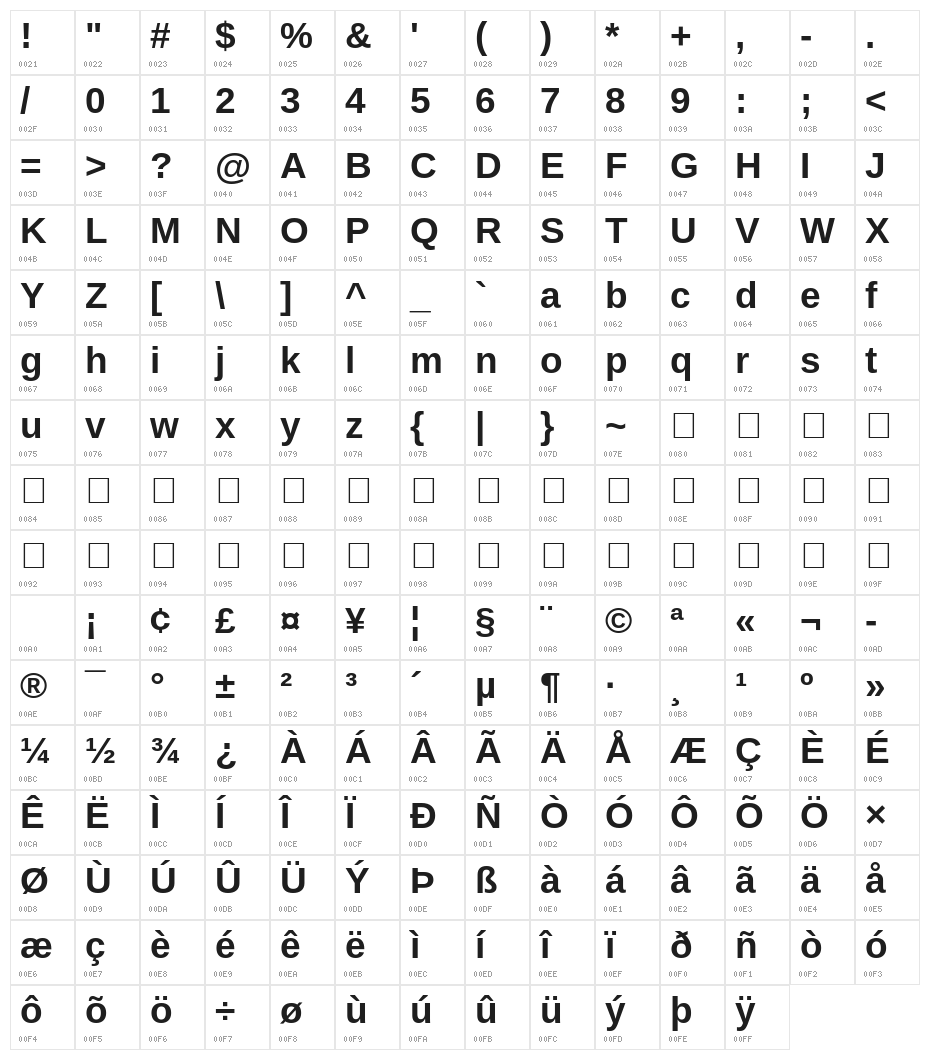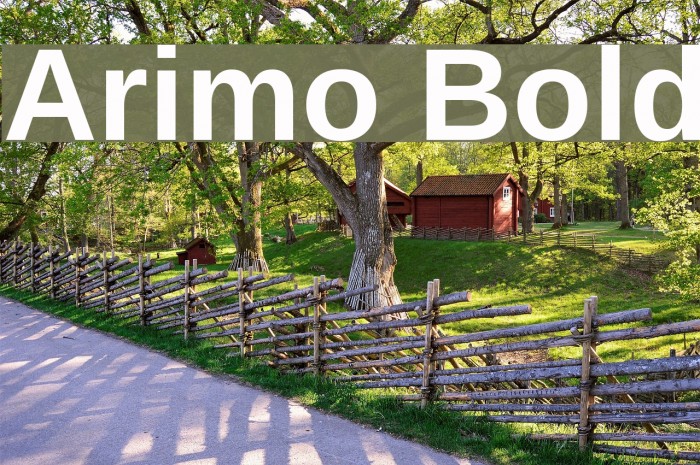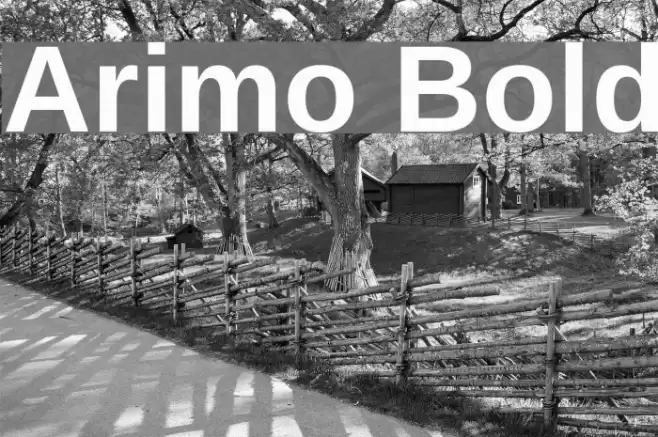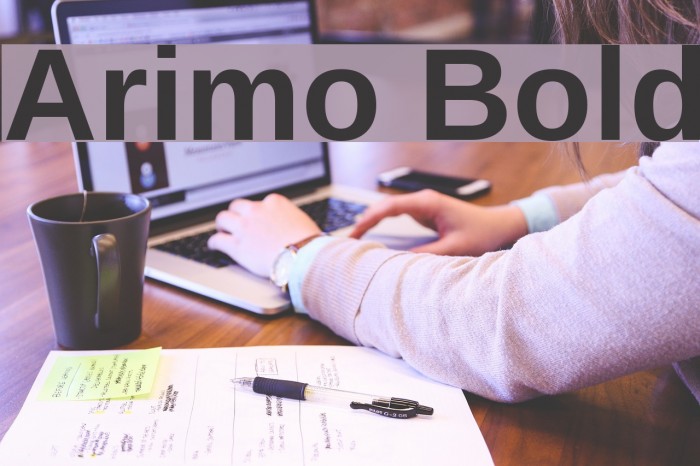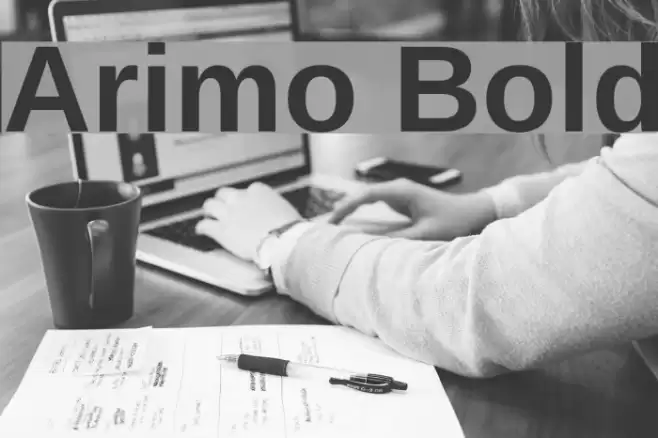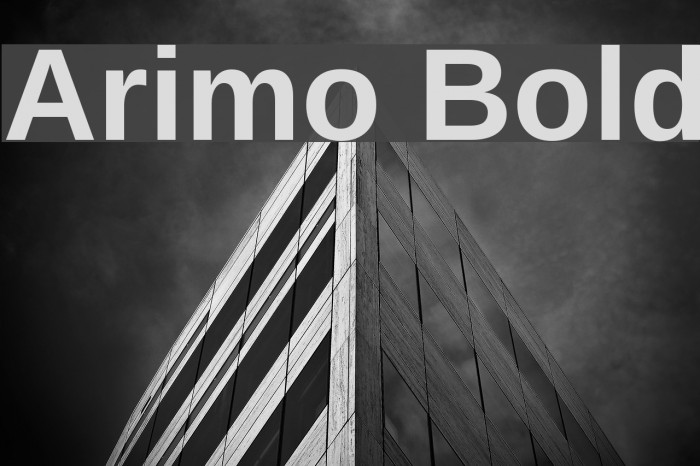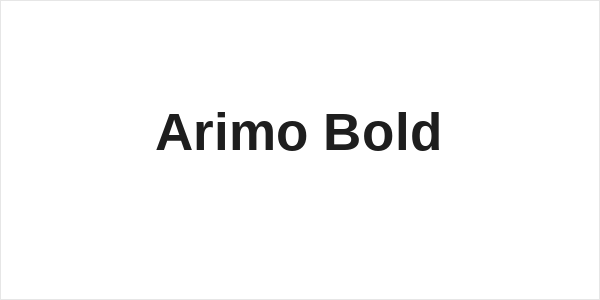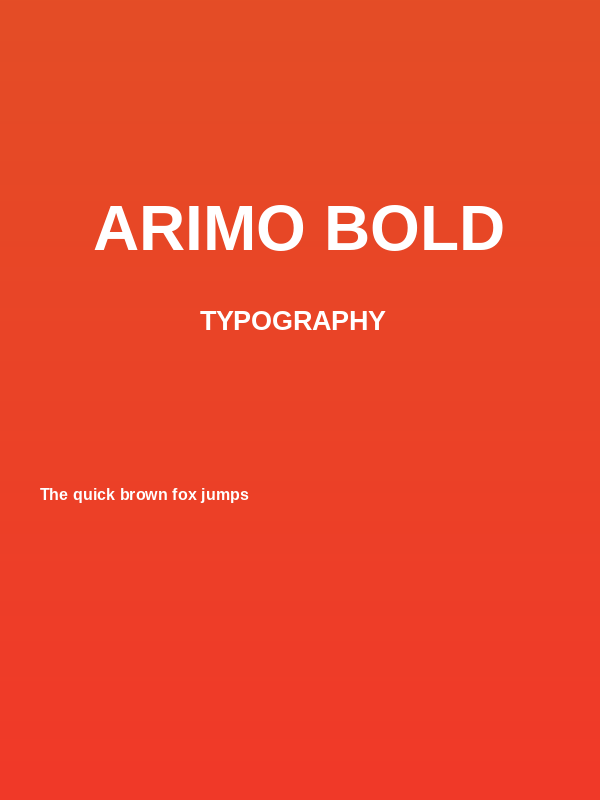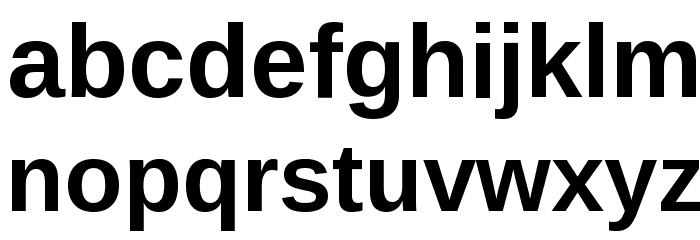
Arimo Bold Font
Arimo Bold Description
This typeface is a modern sans-serif font characterized by its clean and straightforward design. It features bold, uniform strokes that provide excellent readability and a strong presence on the page. The characters are well-proportioned with a consistent weight, making it suitable for both digital and print media. Its geometric shapes and open counters contribute to its legibility, while the slightly rounded edges add a touch of warmth to the otherwise sleek and professional appearance. This font is versatile and can be used in various contexts, from corporate branding to web design.